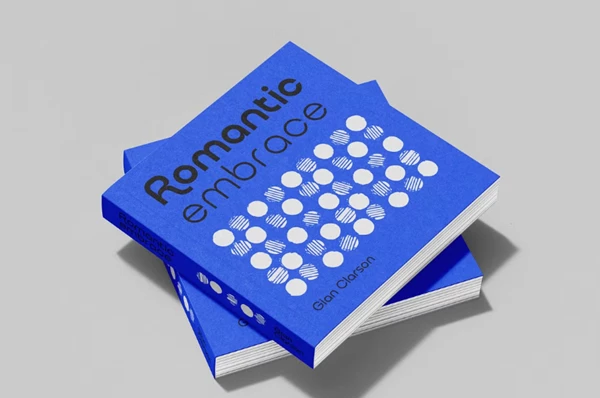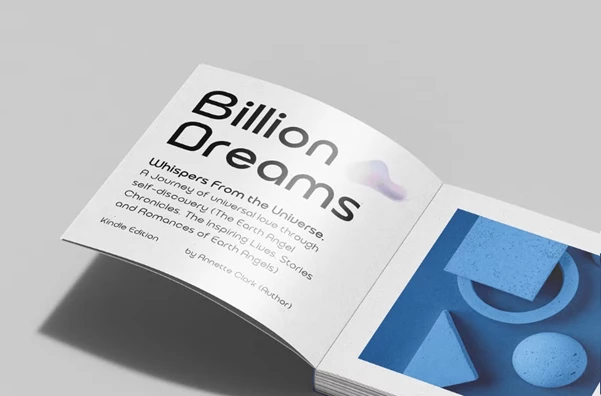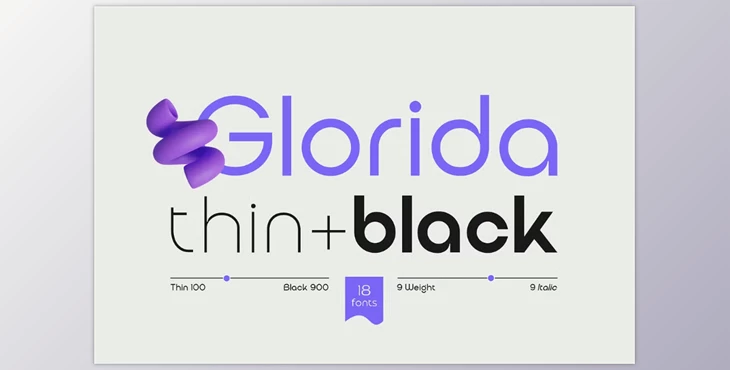
Glorida Font:
Glorida fills a gap in your project’s typographic needs with 18 styles, from Thin to Black, paired with matching italics. Its smooth curves and rounded edges make it a great fit for branding, web interfaces, and editorial design. Glorida can tackle any creative challenge with confidence because of its balanced proportions, ensuring clarity while lending an air of sophistication to any project.
"Glorida Font" Samples: